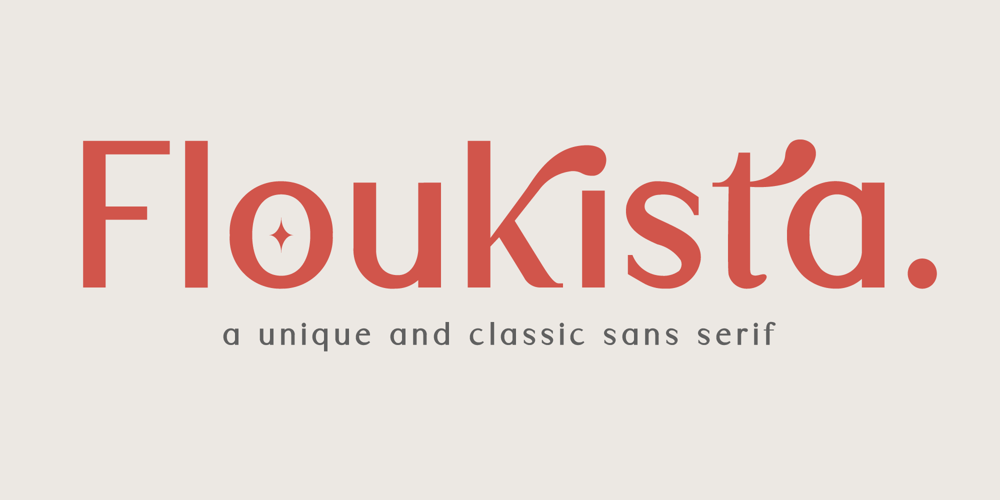
Floukista Font Family was designed by Anass Qara and published by Qaratype. Floukista contains 6 styles and family package options. Floukista is a Minimalist Modern Elegant sans serif font with beautiful ligatures, tons of special alternative glyphs, ornament and multilingual support. It’s a very versatile font that works great in large and small sizes. Floukista is perfect for branding projects, Logo design, Clothing Branding, product packaging, magazine headers, or simply as a stylish text overlay to any background image…Main Features: 3 Weights font with Italic Uppercase & Lowercase letters Punctuation and special characters Multilingual support Ligatures & Alternate glyphs Thank you for visiting our item. Hope you like it!